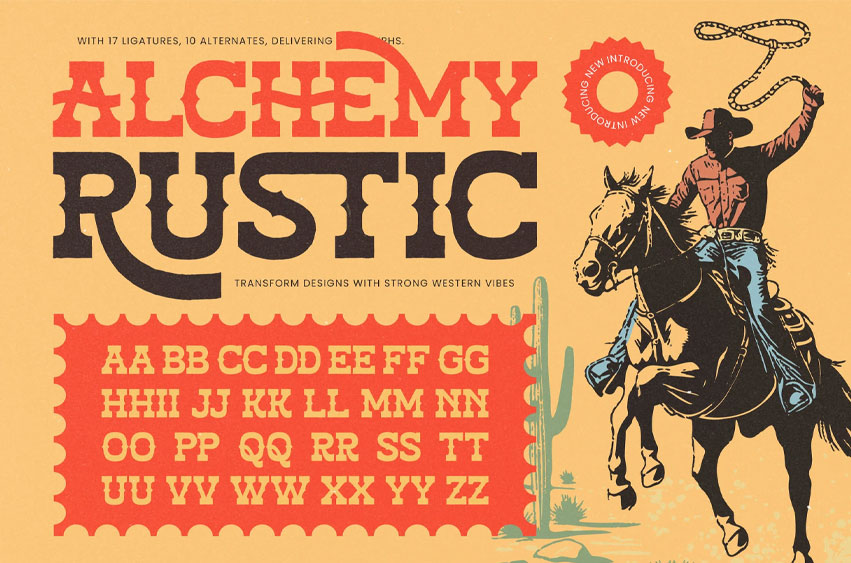
Alchemy Rustic Font
Alchemy Rustic Font is a bold western-style display font inspired by vintage rodeo posters, cowboy lettering, and rugged Americana aesthetics. Its strong slab serifs, decorative curves, and sturdy shapes capture the spirit of the Wild West—making it perfect for retro branding, beer and BBQ packaging, rodeo event posters, badges, signage, graphics, and adventurous outdoor-themed designs. This font brings a gritty yet charismatic rustic tone that instantly transforms any layout with authentic western vibes.
Featuring 17 ligatures and 10 alternates, Alchemy Rustic offers creative flexibility to build unique wordmarks, expressive headlines, vintage labels, and bold typographic compositions. Its handcrafted feel, durable structure, and nostalgic charm make it a standout choice for designers seeking a powerful, western-inspired display font with personality and impact.